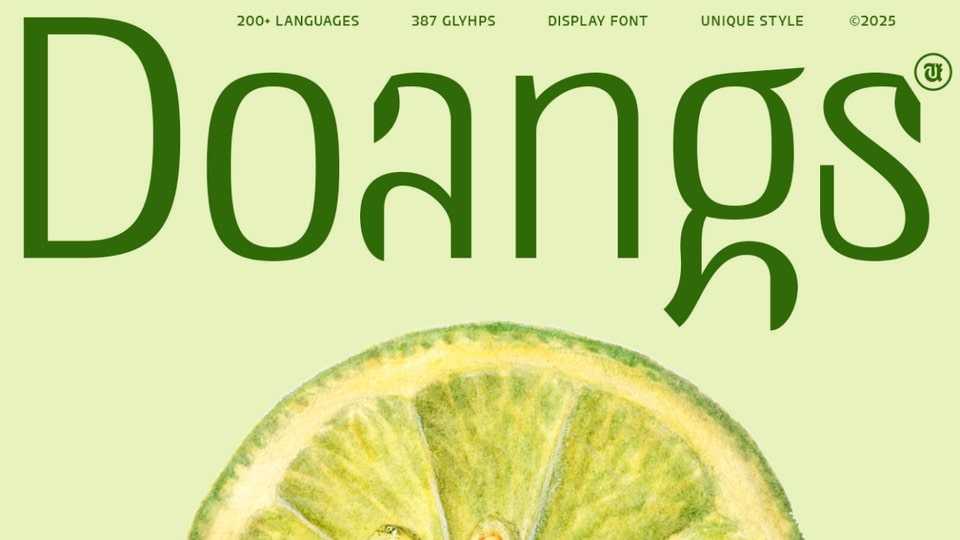
Download UT Doangs font, a sophisticated typeface that draws inspiration from Nick Moran’s sculpture “263 Sonnet”, a minimalist metal form that captures both tension and grace.